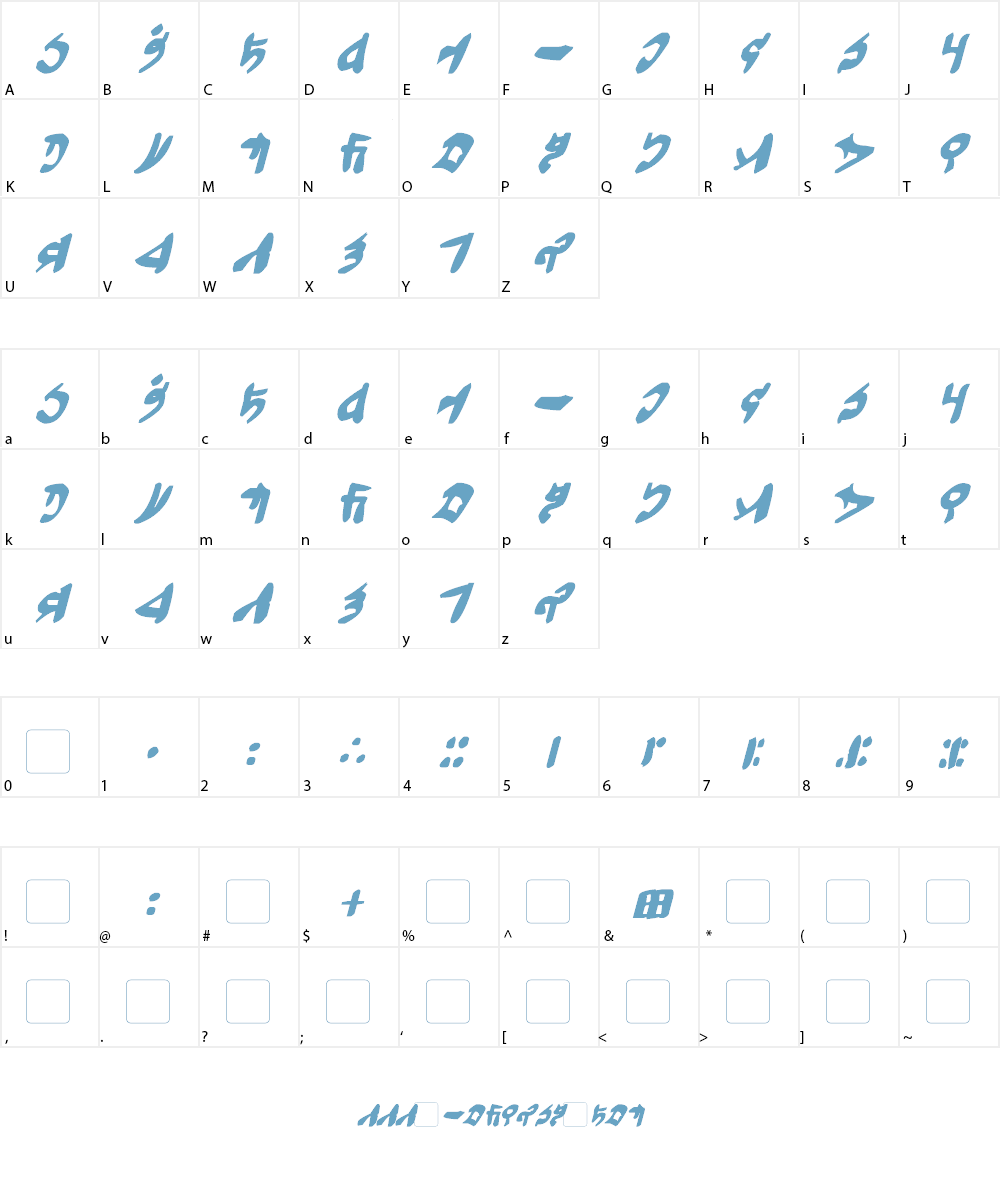
Tuigan is based on the common “human” language presented in Wizards of the Coast’s Forgotten Realms Hordelands (second edition) designed to be reminiscent of early Monogolian languages. Includes all canon glyphs. Includes regular, bold, italic, and bold-italic weights.